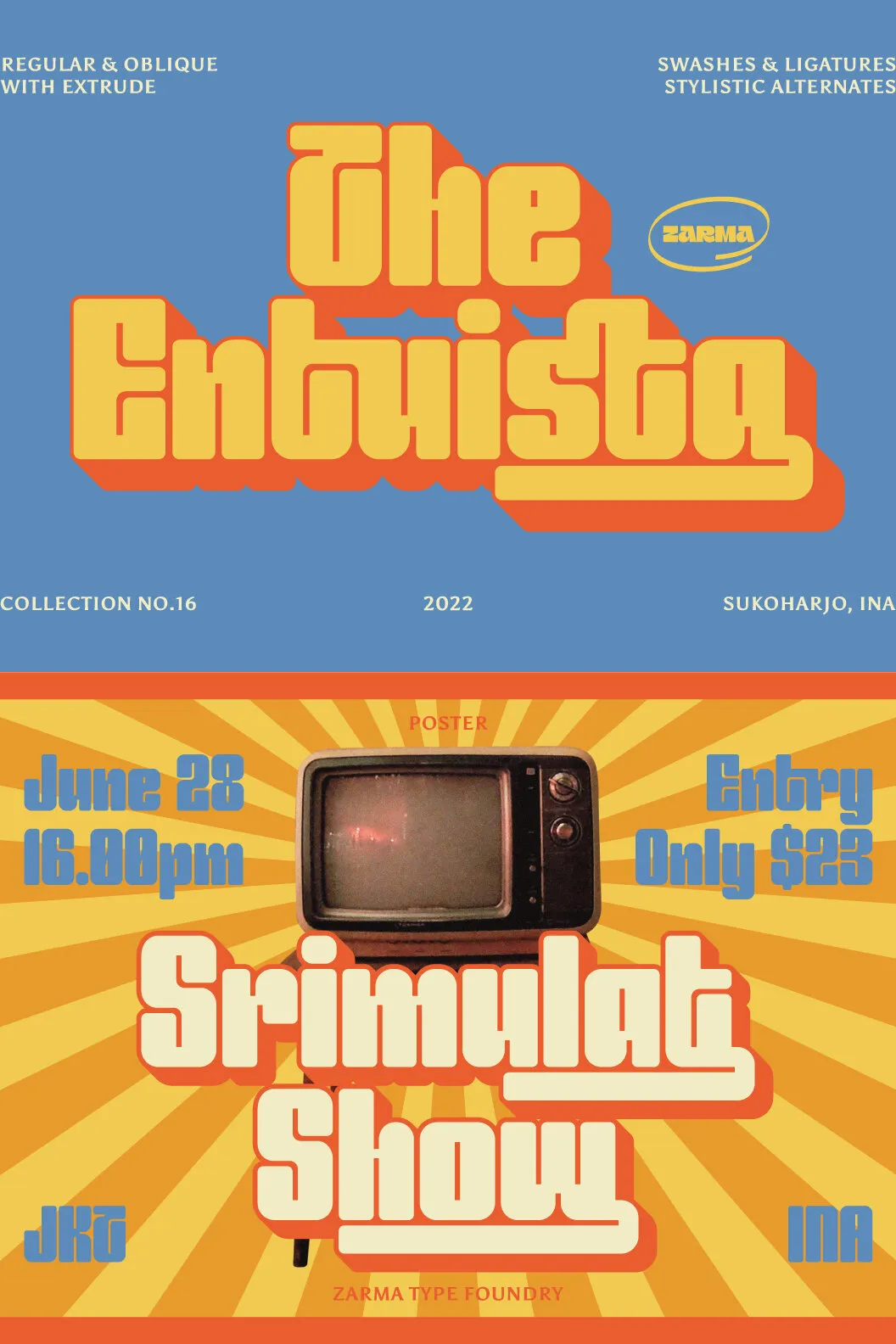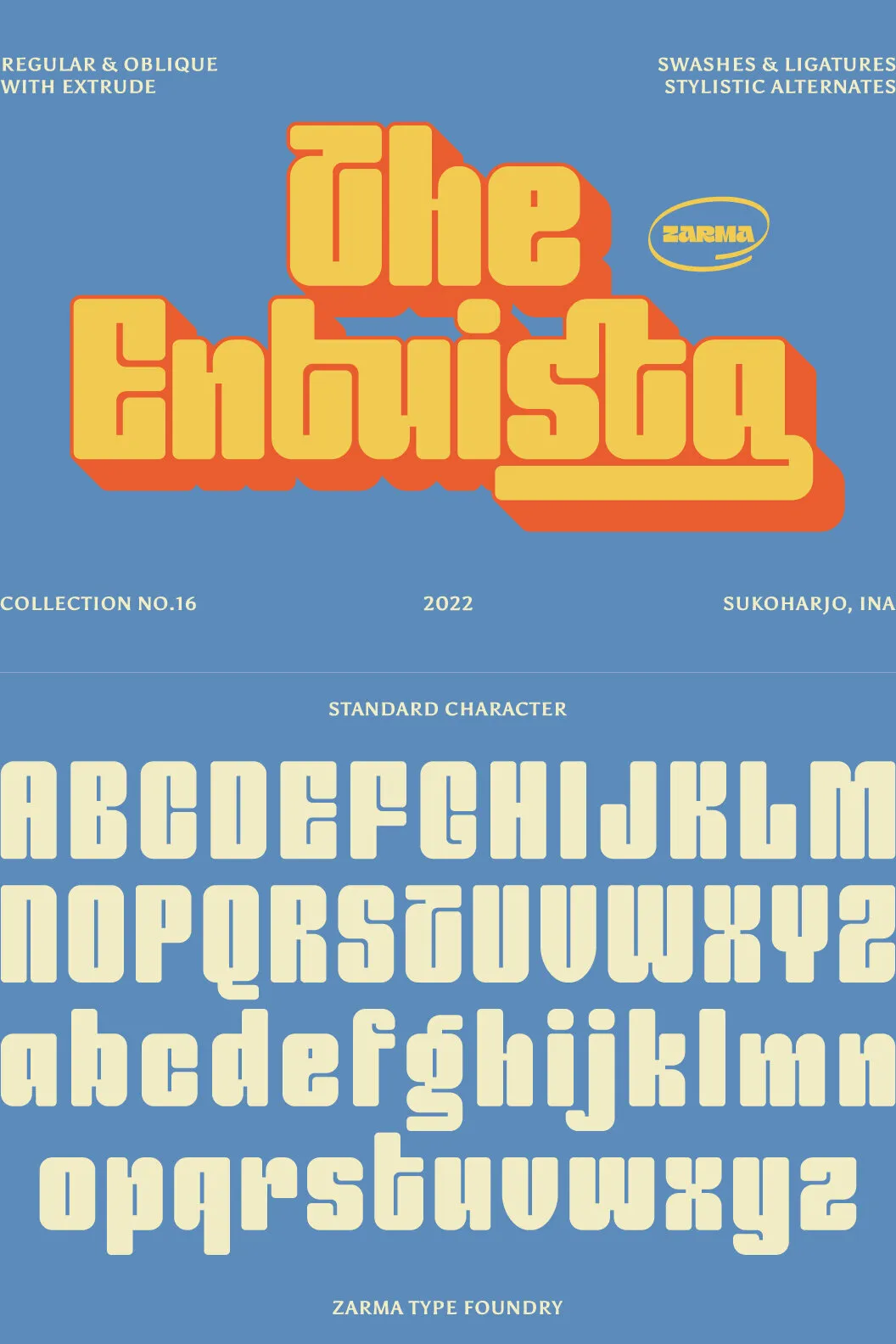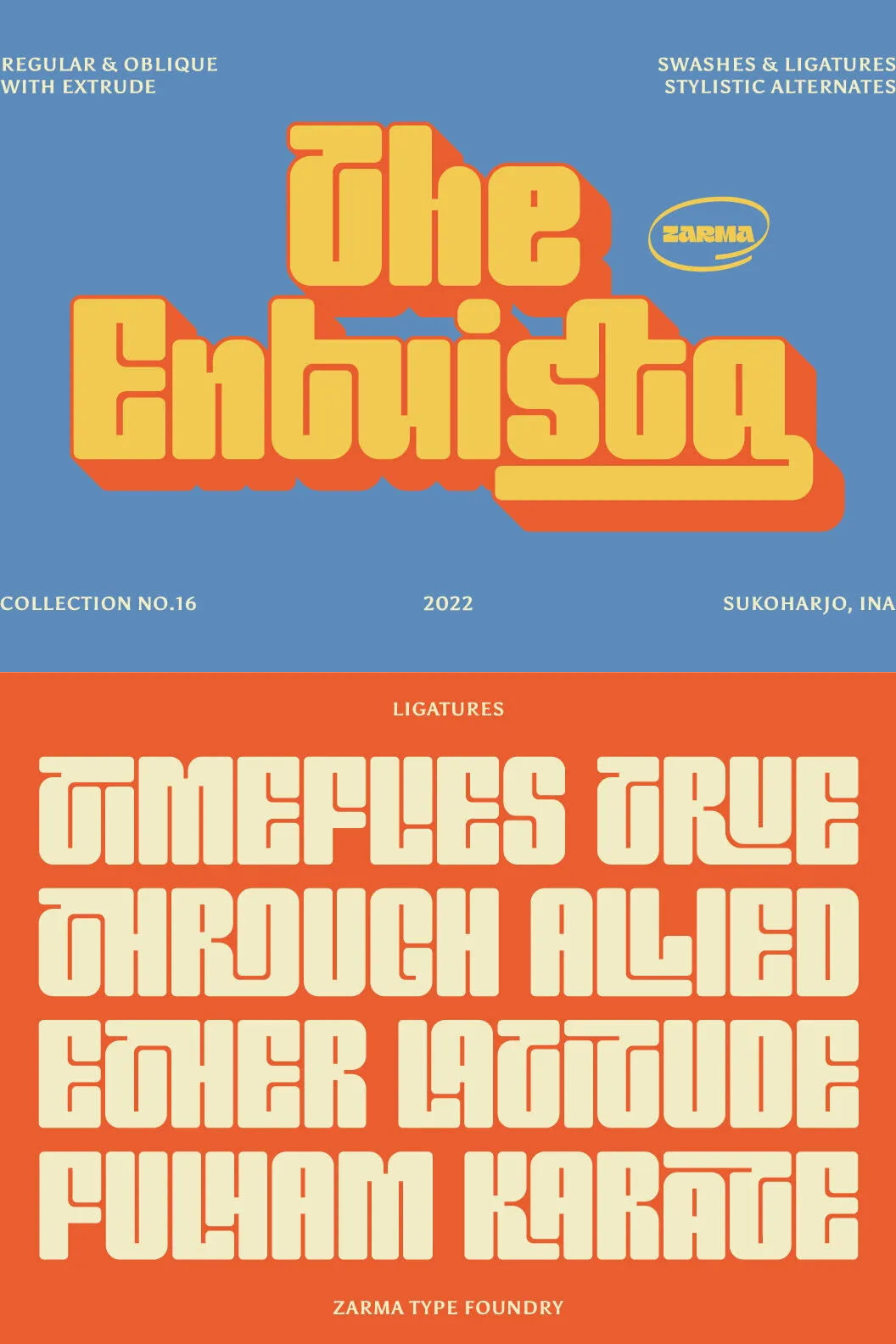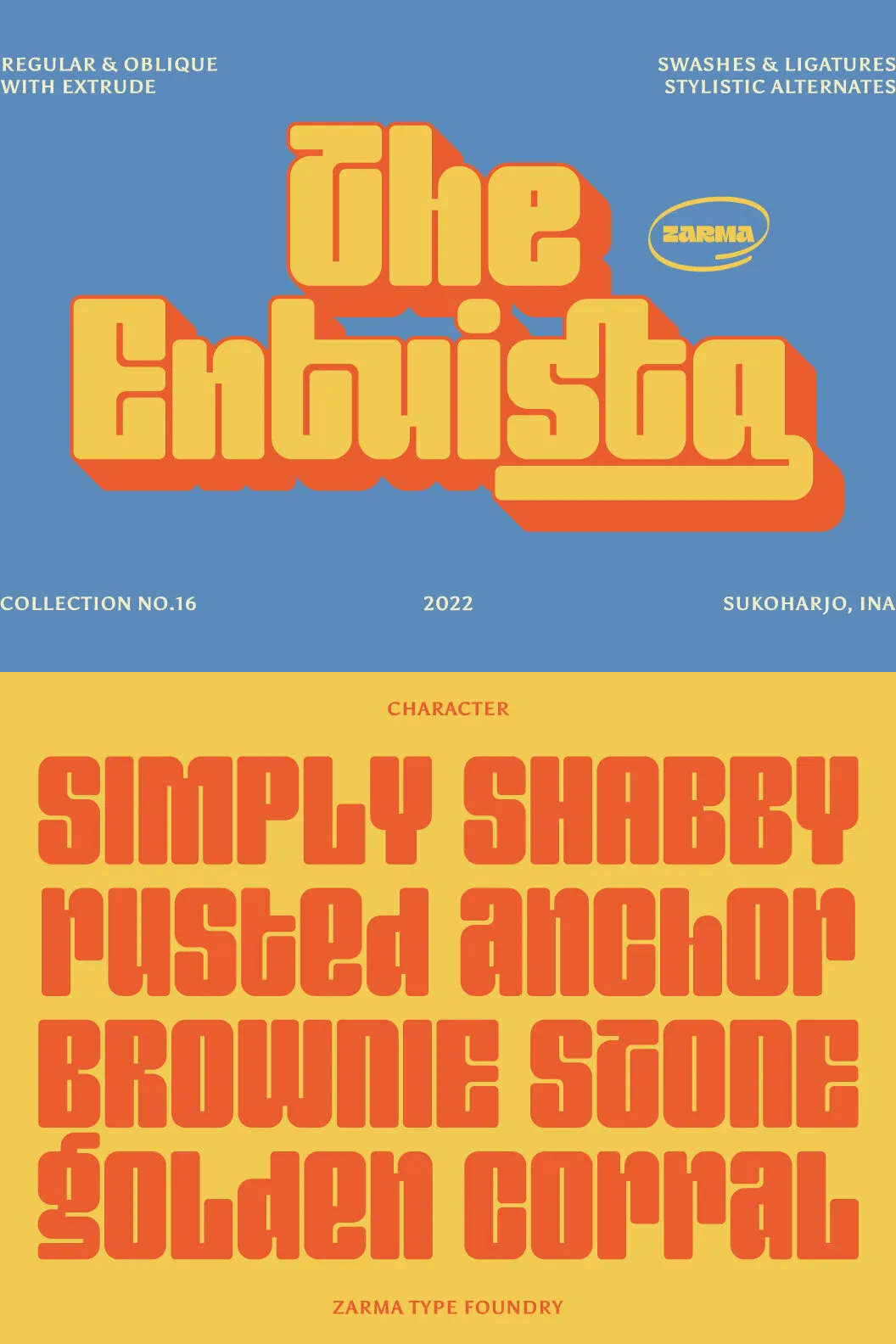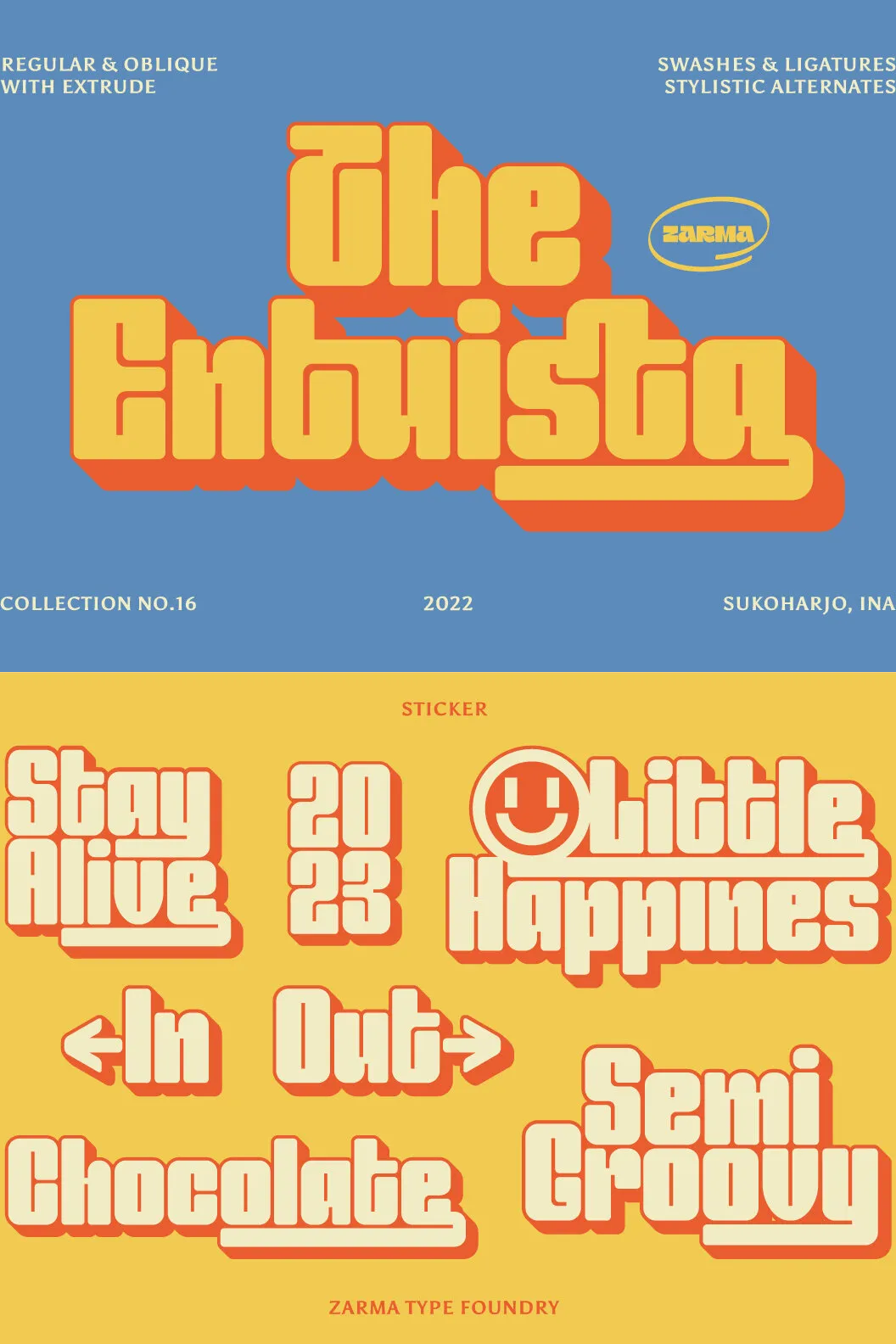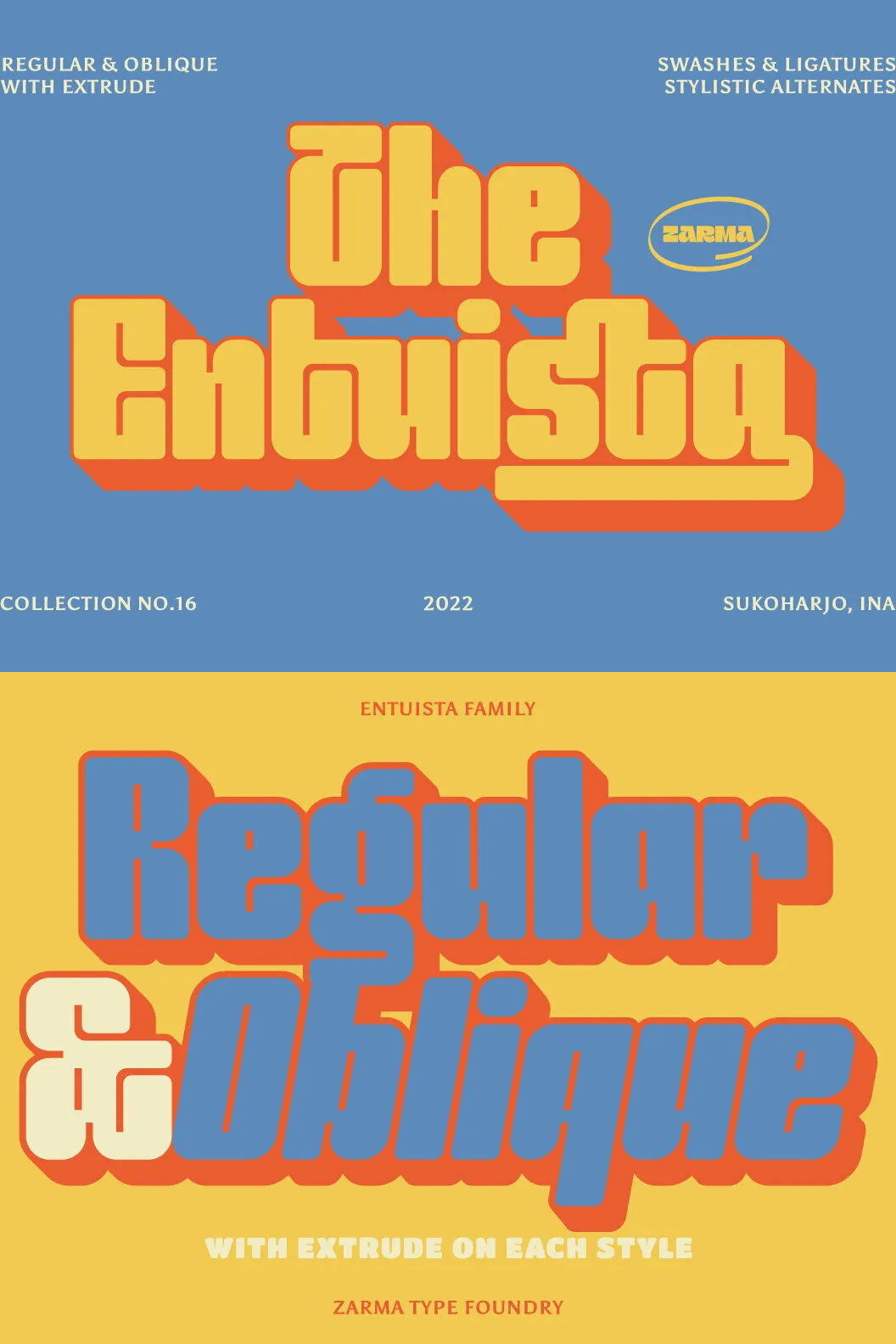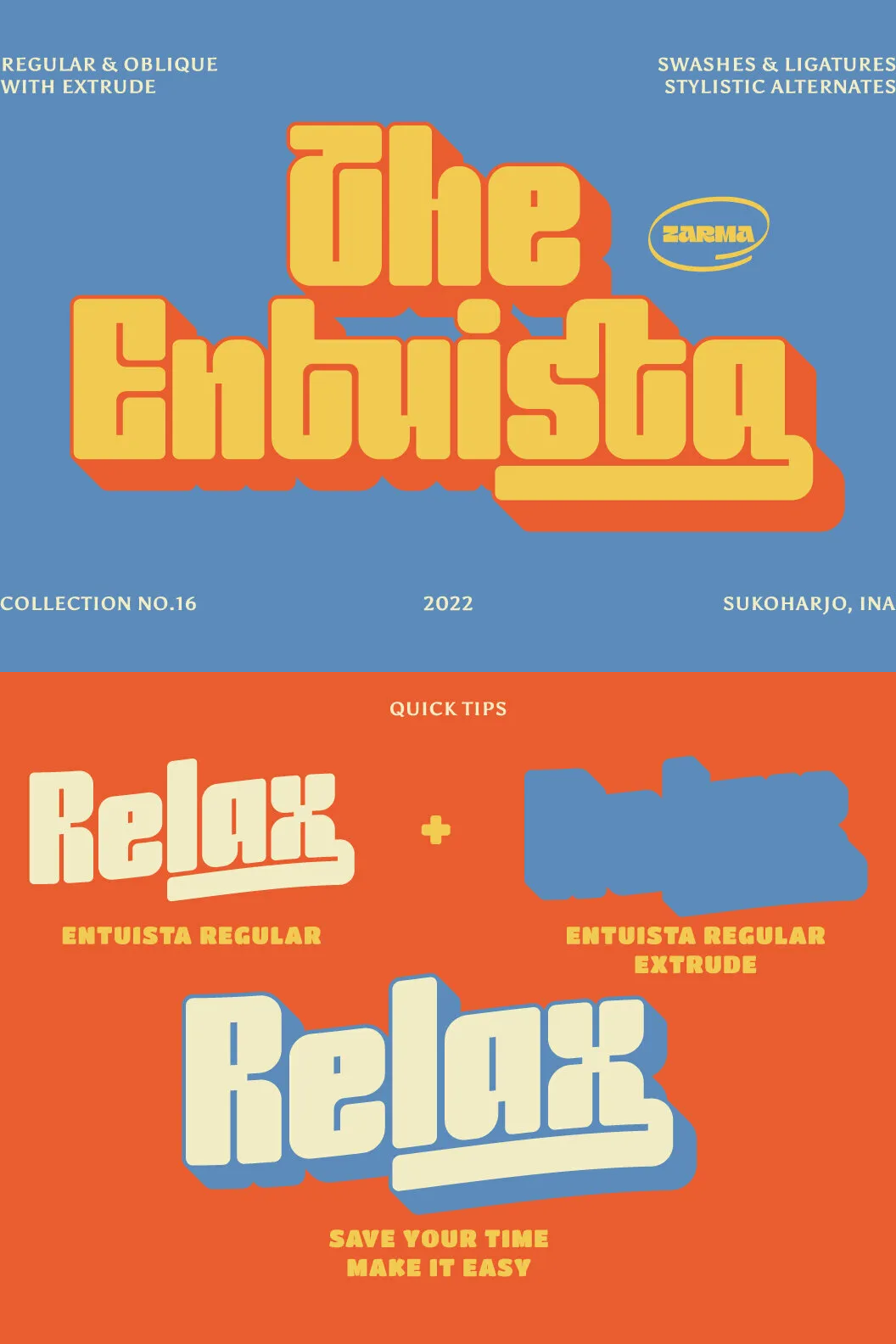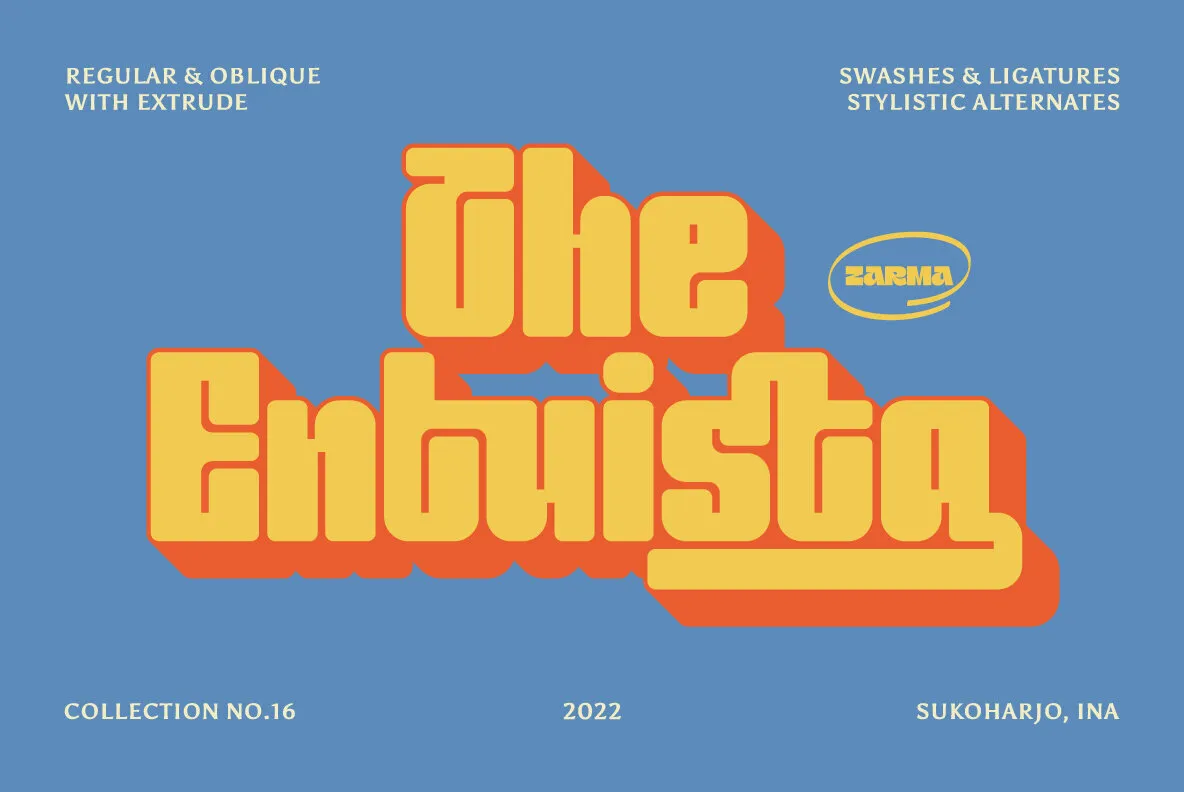
Entuista FonttypesiteJanuary 29, 2024Display Step back in time with Entuista, a captivating retro font design by ZarmaType Foundry, evoking nostalgia and charm. SKU T16358 Download Here